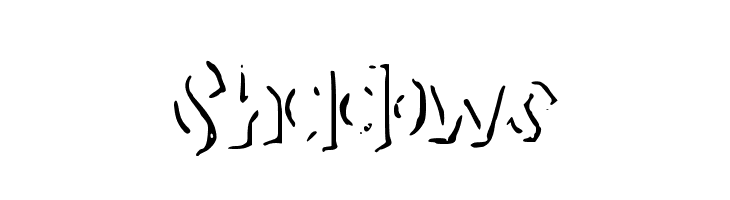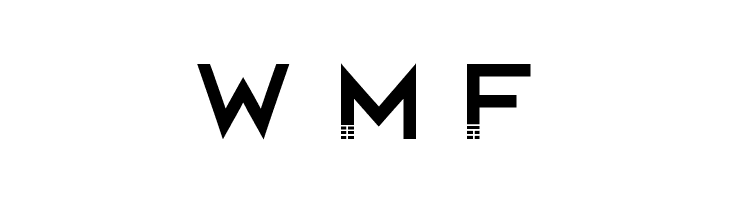
( AllThingsLettering )
A bold, stencil-like font with a fragmented, shadowy effect.
( Alit Design - creativemarket.com/alitdesign )
A bold, textured font with a vintage, stamp-like appearance.
( Alifia )
A playful, hand-drawn font with rounded, informal characters.
( Alfabag )
A bold, pixelated typeface with a retro digital aesthetic.
( Alfabag )
A bold, geometric font with a modern, digital aesthetic.
( Alexander Lange - www.quivira-font.com/ )
A classic serif typeface with balanced elegance and moderate contrast.
( Alexander Kominek - fontstruct.fontshop.com/fontstructors/lexkominek )
A bold, geometric font with a stacked, three-dimensional appearance.
( Alejo Bergmann - www.designals.net/ )
A bold, geometric font with rounded edges, perfect for impactful headlines.
( AlejandraCruzado )
A decorative font with playful ball terminals and bold, whimsical characters.
( Aldus )
An ornate and regal font with intricate details and decorative flourishes.